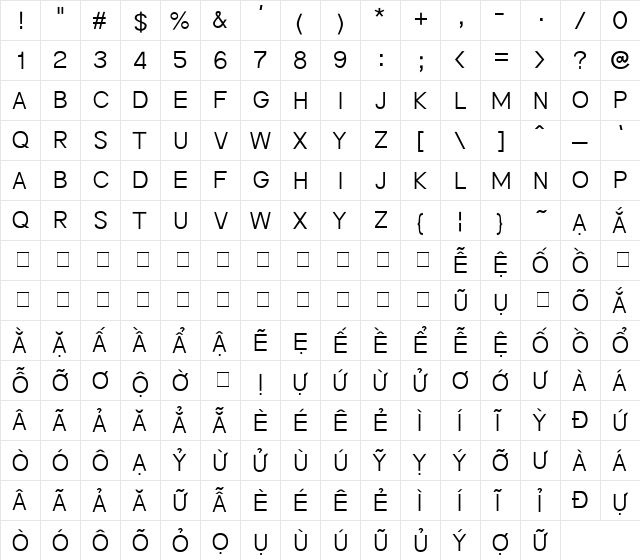
Heo May Hoa 1.1 Regular
Design Context for Heo May Hoa 1.1 Typeface
Heo May Hoa 1.1 takes a measured approach to typography — its balanced proportions and neutral character make it a reliable workhorse for both digital and print work.